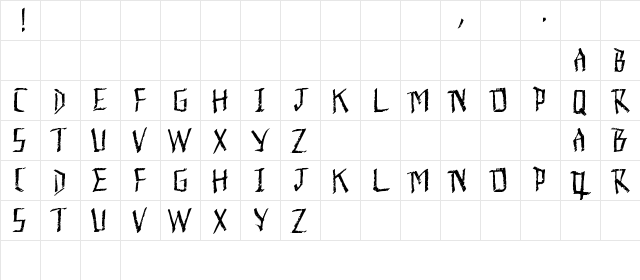
Quick Pick Your Hat Regular
Foundry: Le Thi Thu Huong
Designer: Le Thi Thu Huong
Design Context for Quick Pick Your Hat
Quick Pick Your Hat is a composed and adaptable typeface that performs quietly and consistently across a wide range of design contexts.